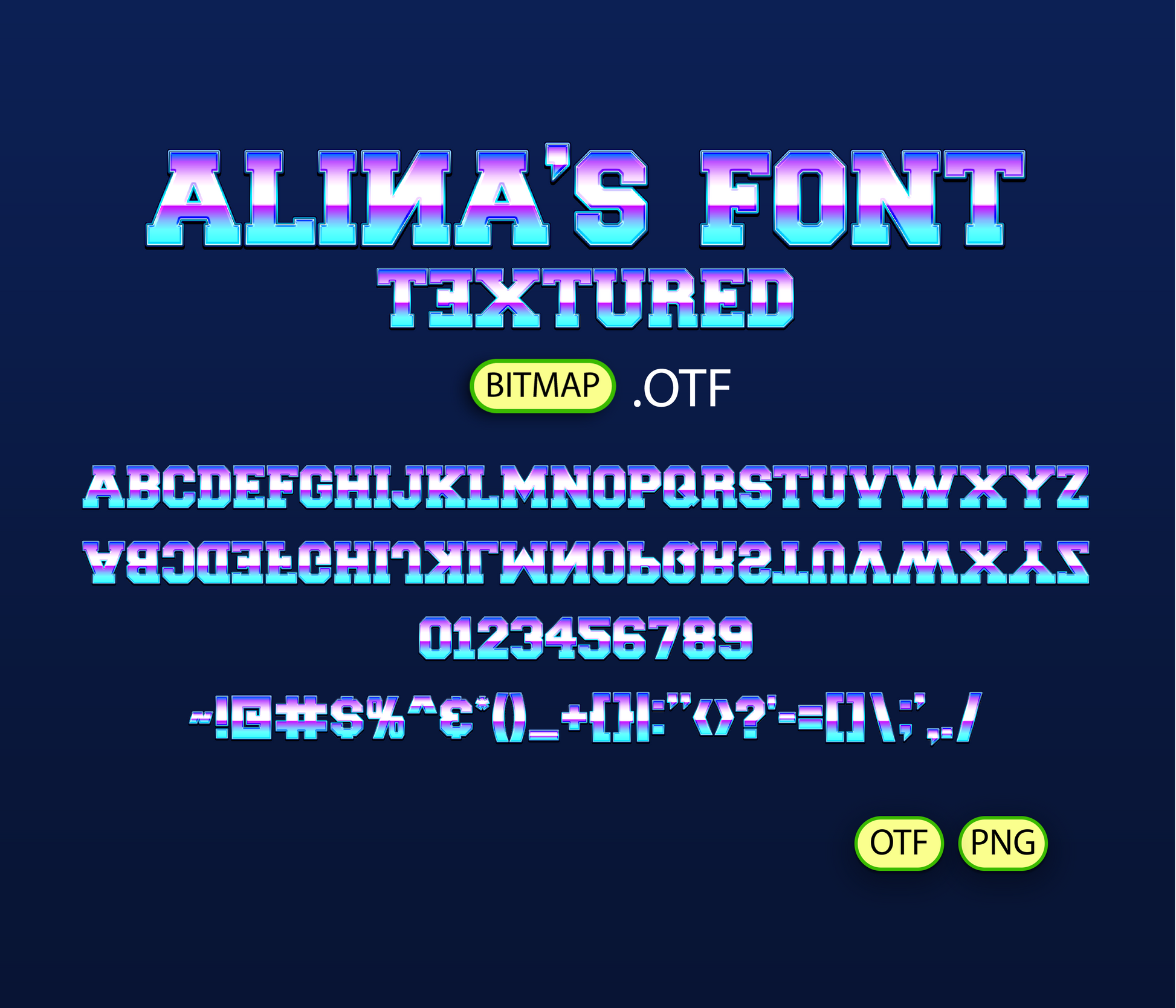
Vertical Flip Font Textured
Step into the intriguing world of inverted typography with our Vertical Flip Font Textured, capturing the essence of sky-to-ground reversal and mirrored directional aesthetics. Perfect for boundary-pushing creatives, event specialists, content developers, and artistic specialists, this font brings the daring, perplexing spirit of orientation-reversed design tales to your projects. Create memorable invitations, commercial goods, or internet content with the striking character of head-over-heels visual narratives.
Bold Typography for Radical Design & Visionary Projects
Our Vertical Flip Font Textured features powerful, stylized letterforms with distressed surface qualities reflecting the world of bottom-up compositions and paradoxical positional atmospheres.
- Event Promotions: Create memorable invitations, displays, and marketing materials for progressive celebrations, contemporary showcases, and innovative gatherings that capture the spirit of radical visual entertainment
- Merchandise Design: Perfect for clothing, canvas artwork, adhesive labels, and novelties that showcase the daring aesthetic of rotational reversal themes
- Digital Media: Enhance website platforms, video channels, and online communities with perplexing header designs and graphics that express the intrigue of positional transformation
- Creative Content: Add signature flair to progressive illustrations, innovative designs, and imaginative projects inspired by head-first dimension chronicles
- Personal Projects: Bring puzzling vitality to scrapbooks, handmade items, and interior decorations inspired by the world of paradoxical positional principles
Our font pays tribute to the world of progressive visual frameworks and innovative design philosophy, empowering your projects with its daring and perplexing spirit. Whether crafting progressive materials, designing visionary products, or adding a radical touch to personal projects, this font communicates the dynamic essence of positional-reversal entertainment. Ready to inject head-over-heels fascination into your creations? This font is your key to memorable, impactful design.